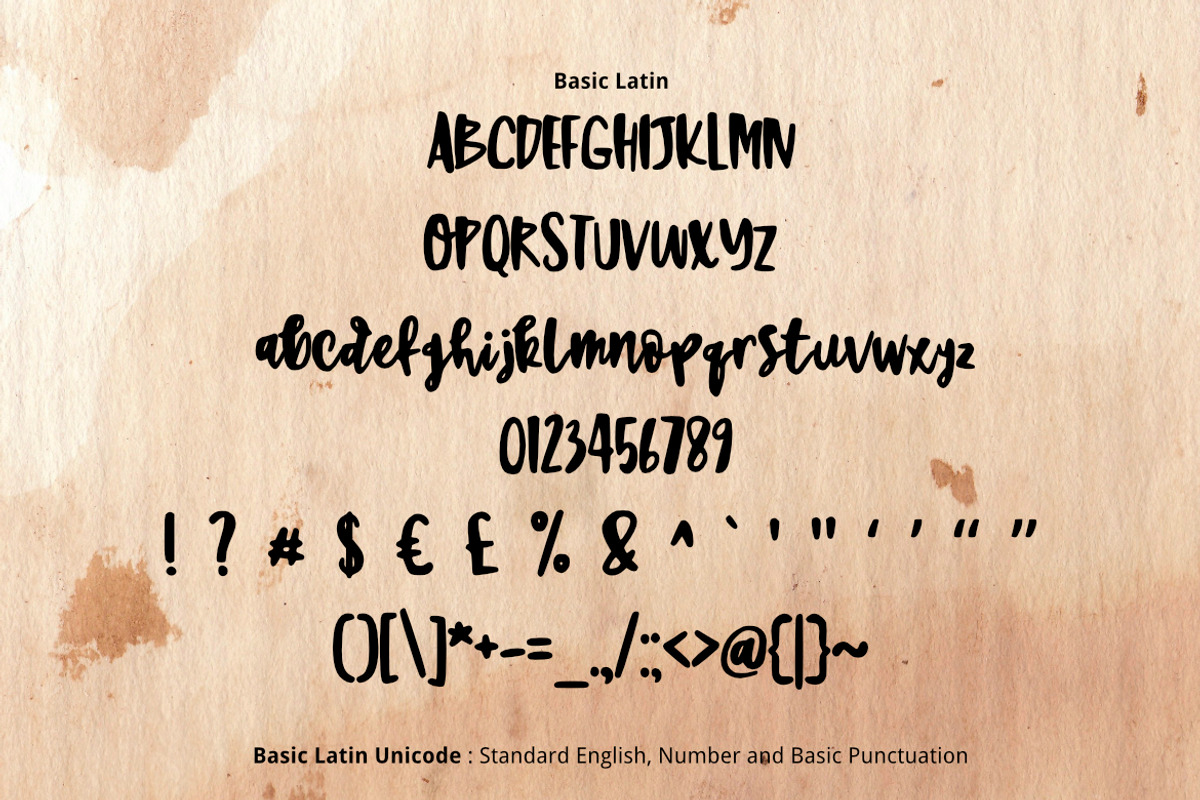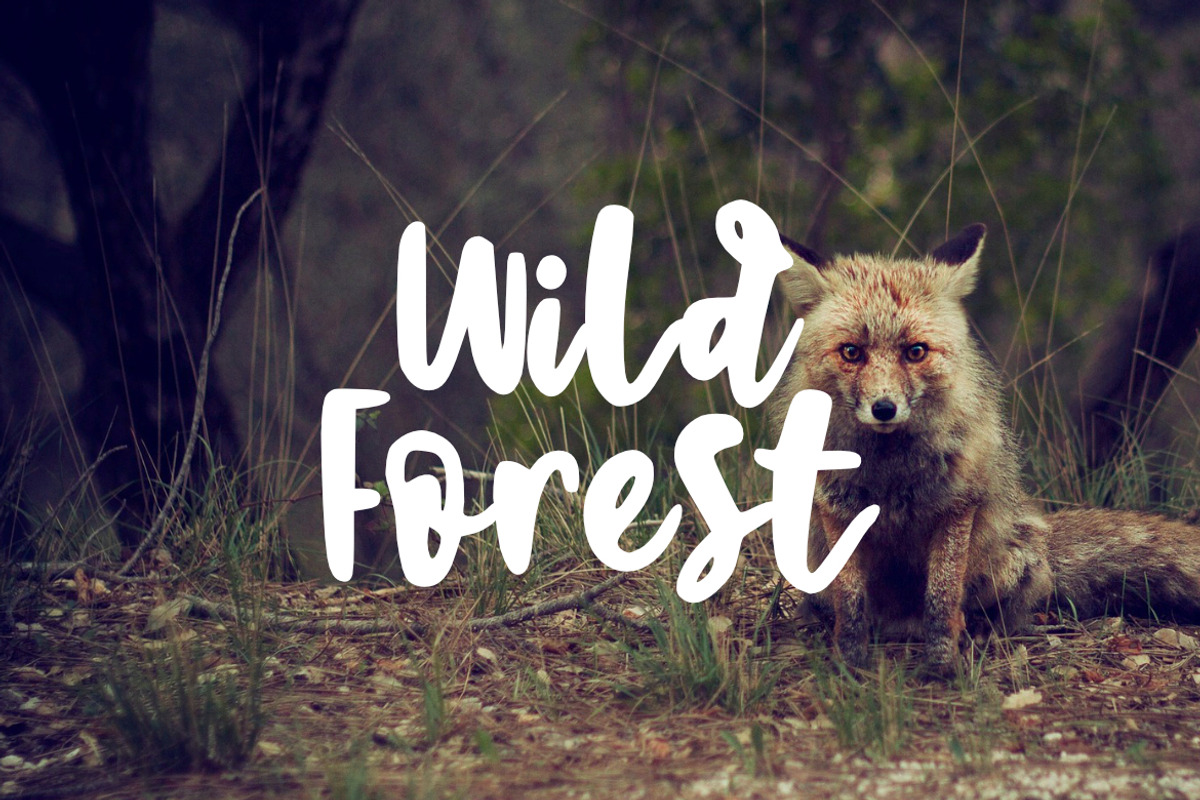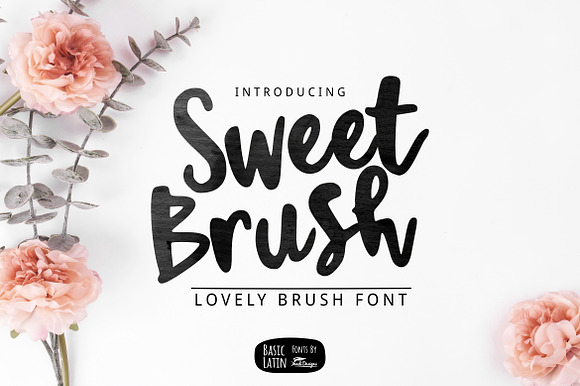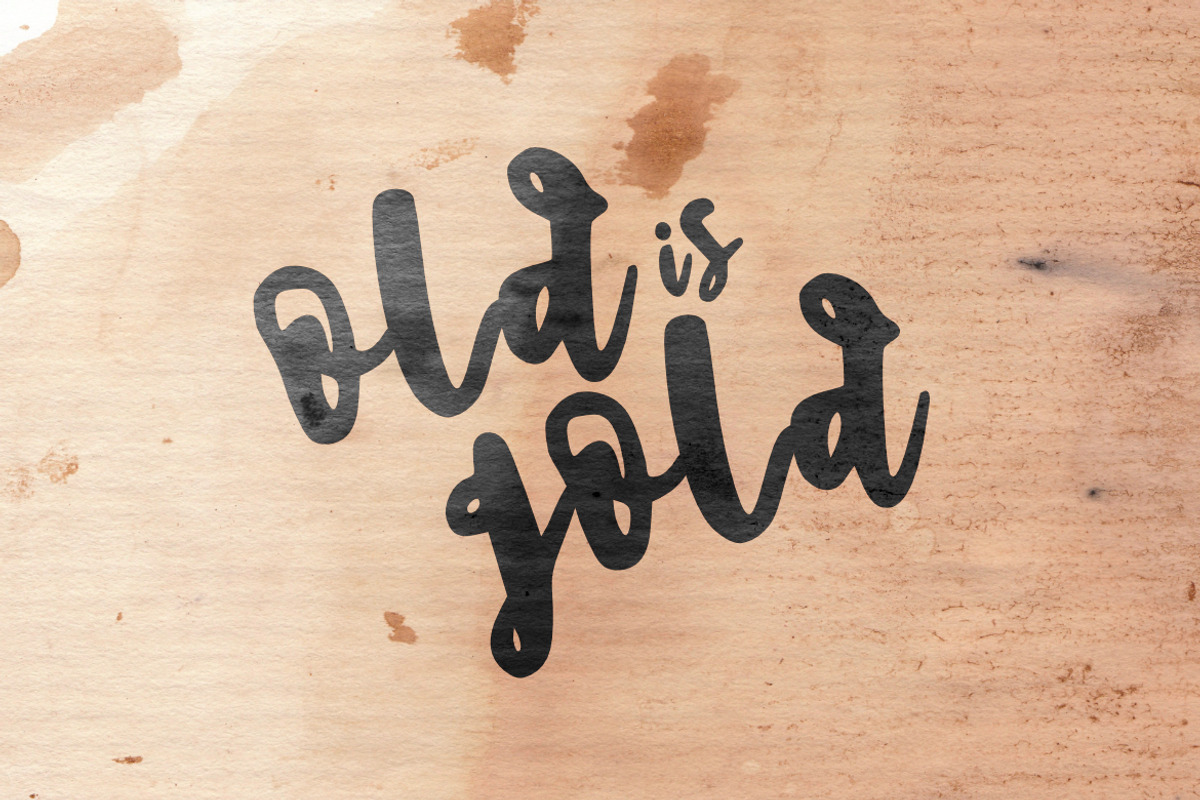
Sweet Brush Font
Simple fresh artistic playful multipurpose script font , suitable for many project children book, quotes, logo , heading , title etc.
Why Sweet Brush Font is worth a look
Sweet Brush Font by YandiDesigns fits naturally into Branding, posters, packaging, typography.